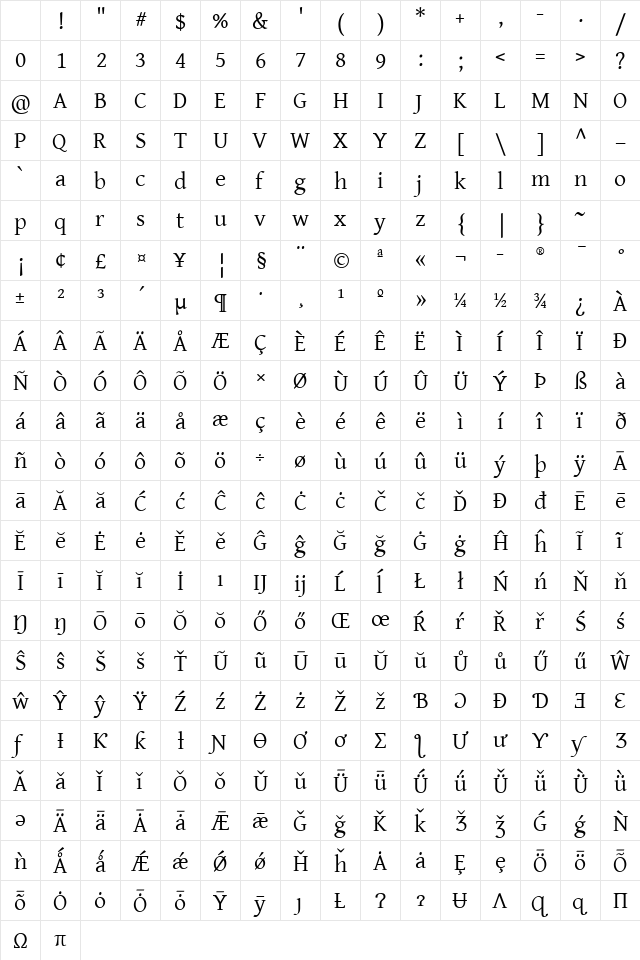
Complete Gentium Basic Regular glyph index. Displaying only characters natively supported by Gentium Basic Regular font.
Gentium Basic is a composed and adaptable typeface that performs quietly and consistently across a wide range of design contexts.
Pro Tip: Use Gentium Basic in both headline and body roles to test its range before committing to a single application.